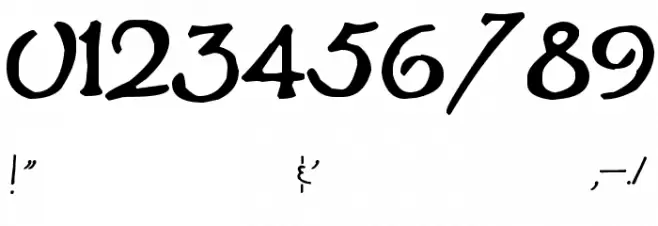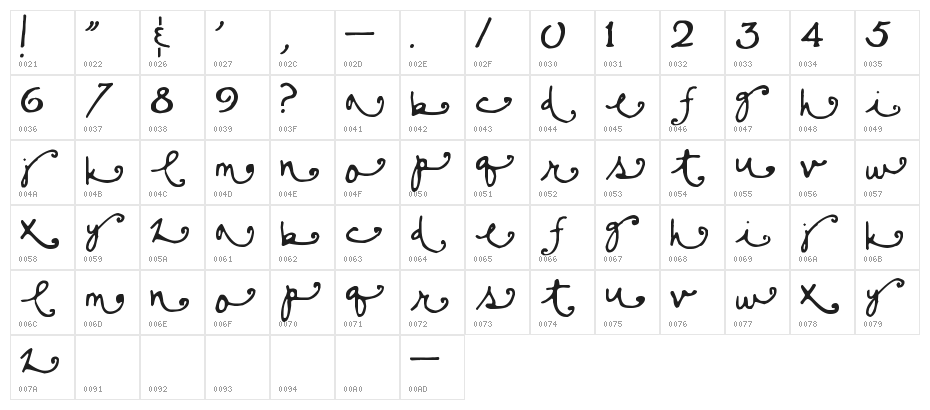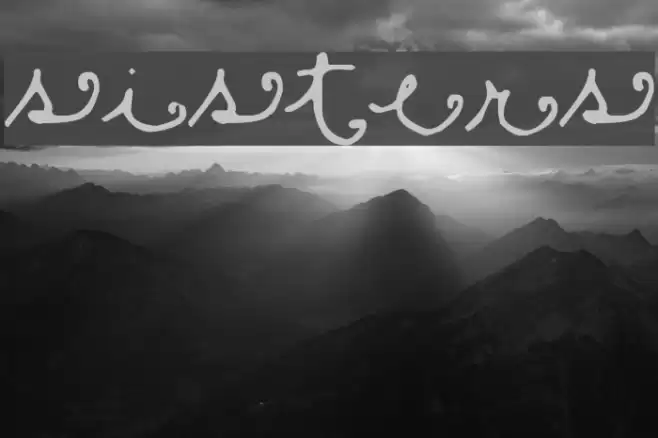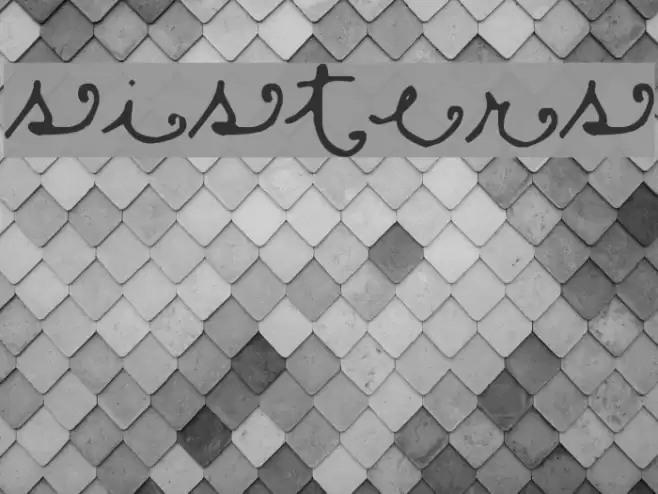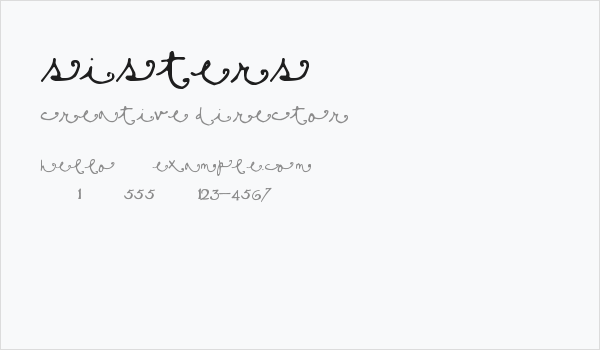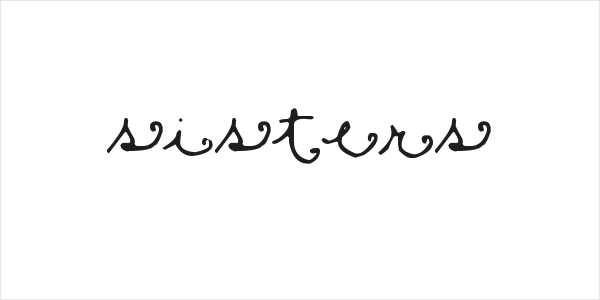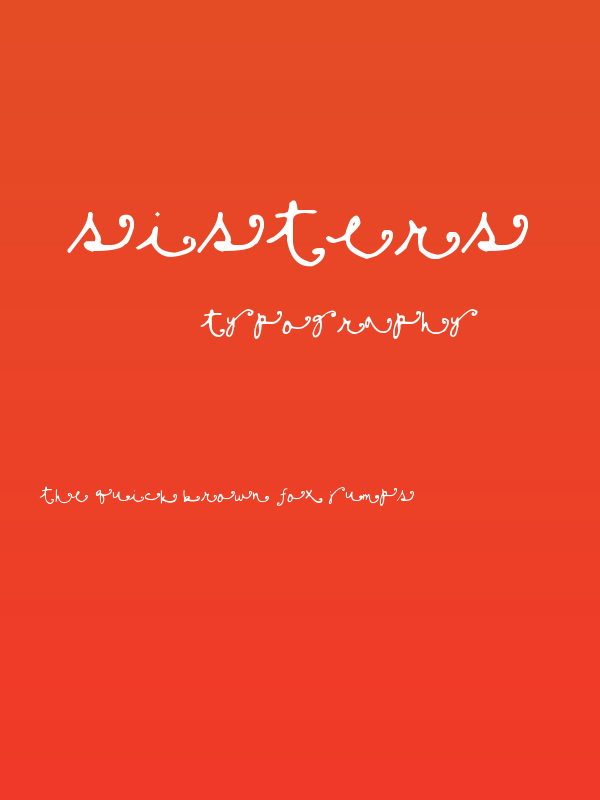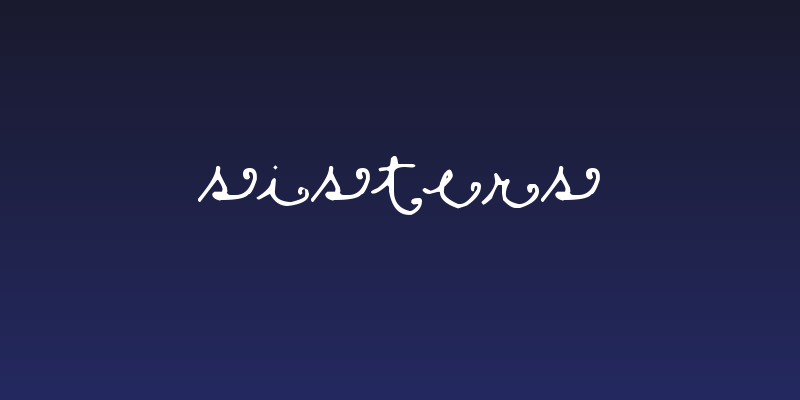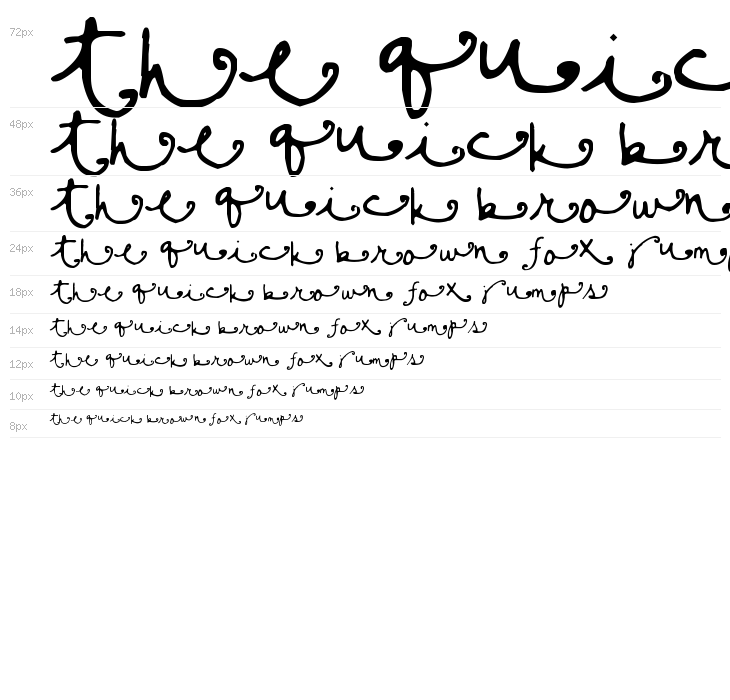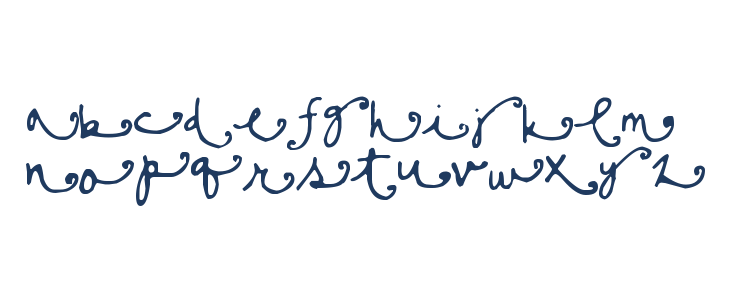
Sisters Font
Sisters Description
This font features a whimsical and playful script style with a unique blend of elegance and charm. The letters are characterized by their flowing, cursive nature, with each character exhibiting a distinct loop or swirl, adding to its decorative appeal. The numbers maintain a bold presence, contrasting with the delicate letterforms. Special characters are crafted with the same artistic flair, making them stand out. The overall design is cohesive, with a consistent stroke width that gives it a harmonious look.